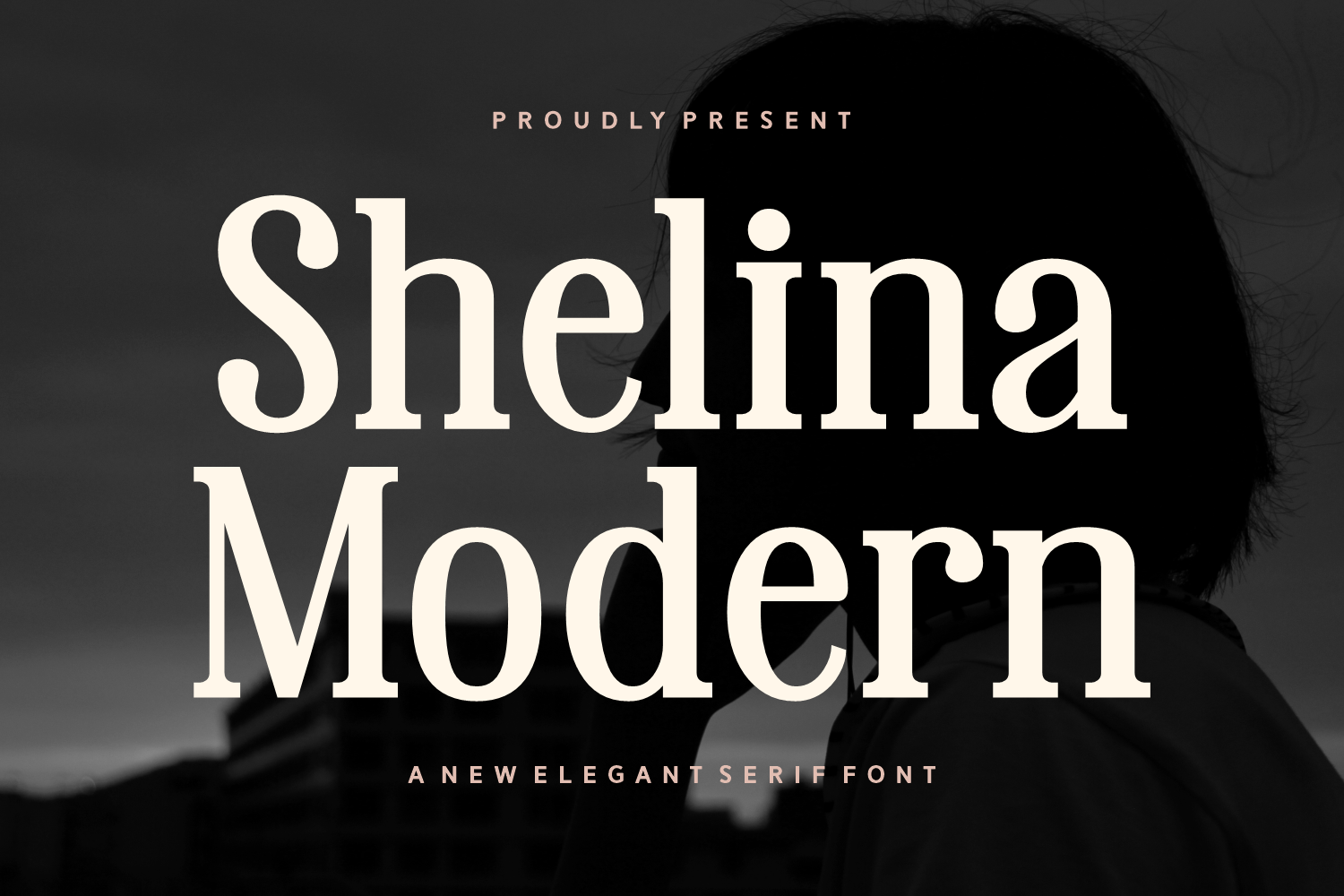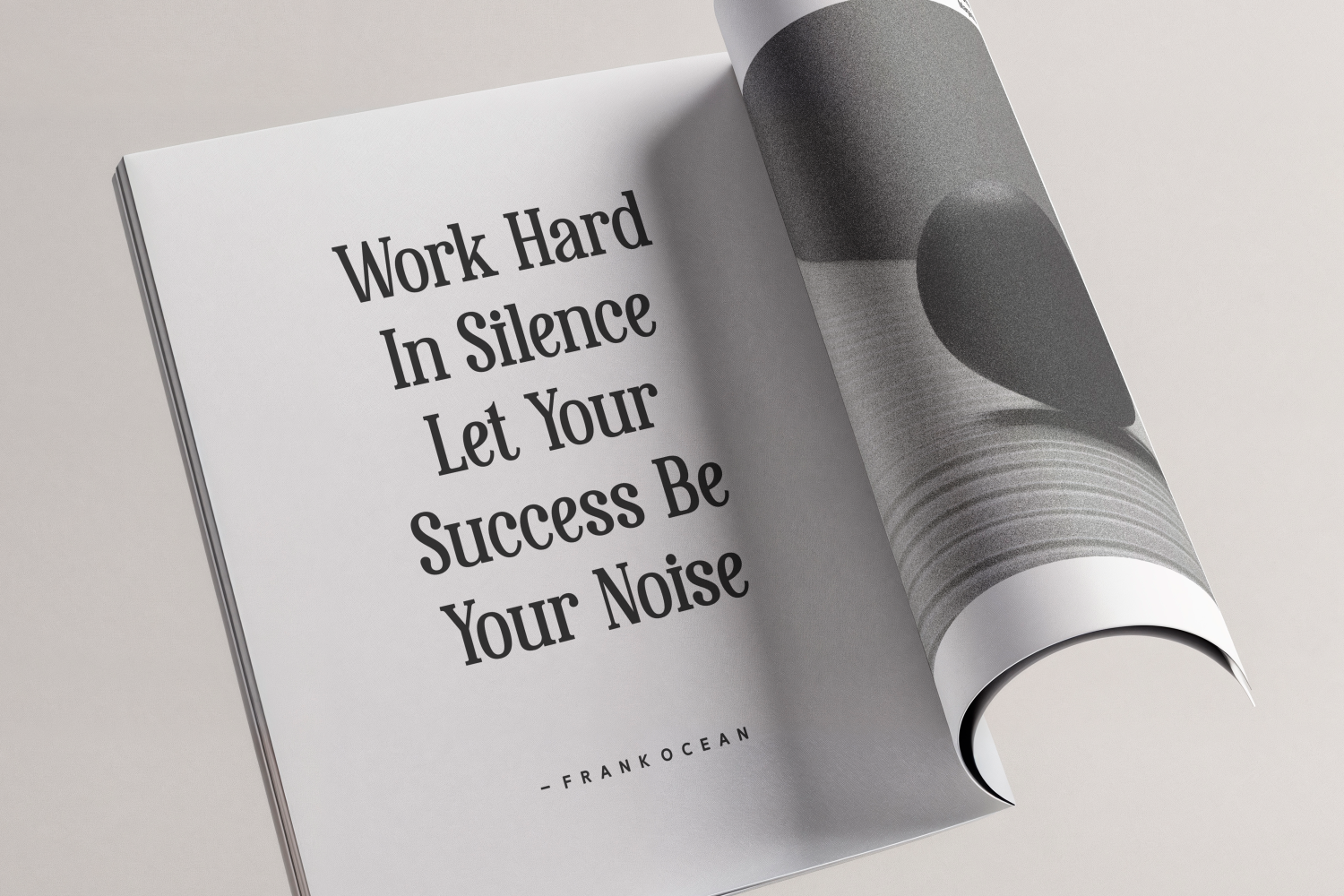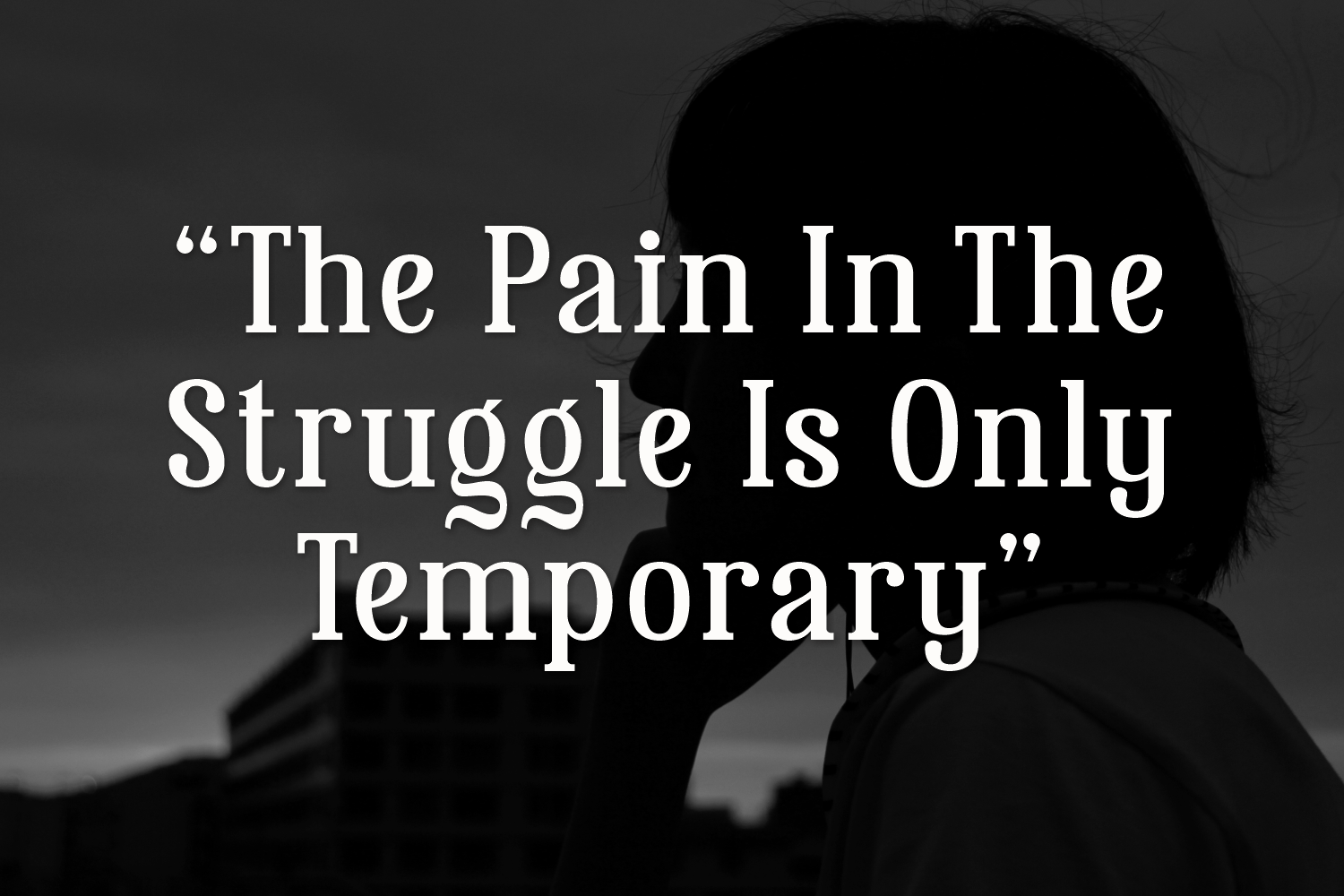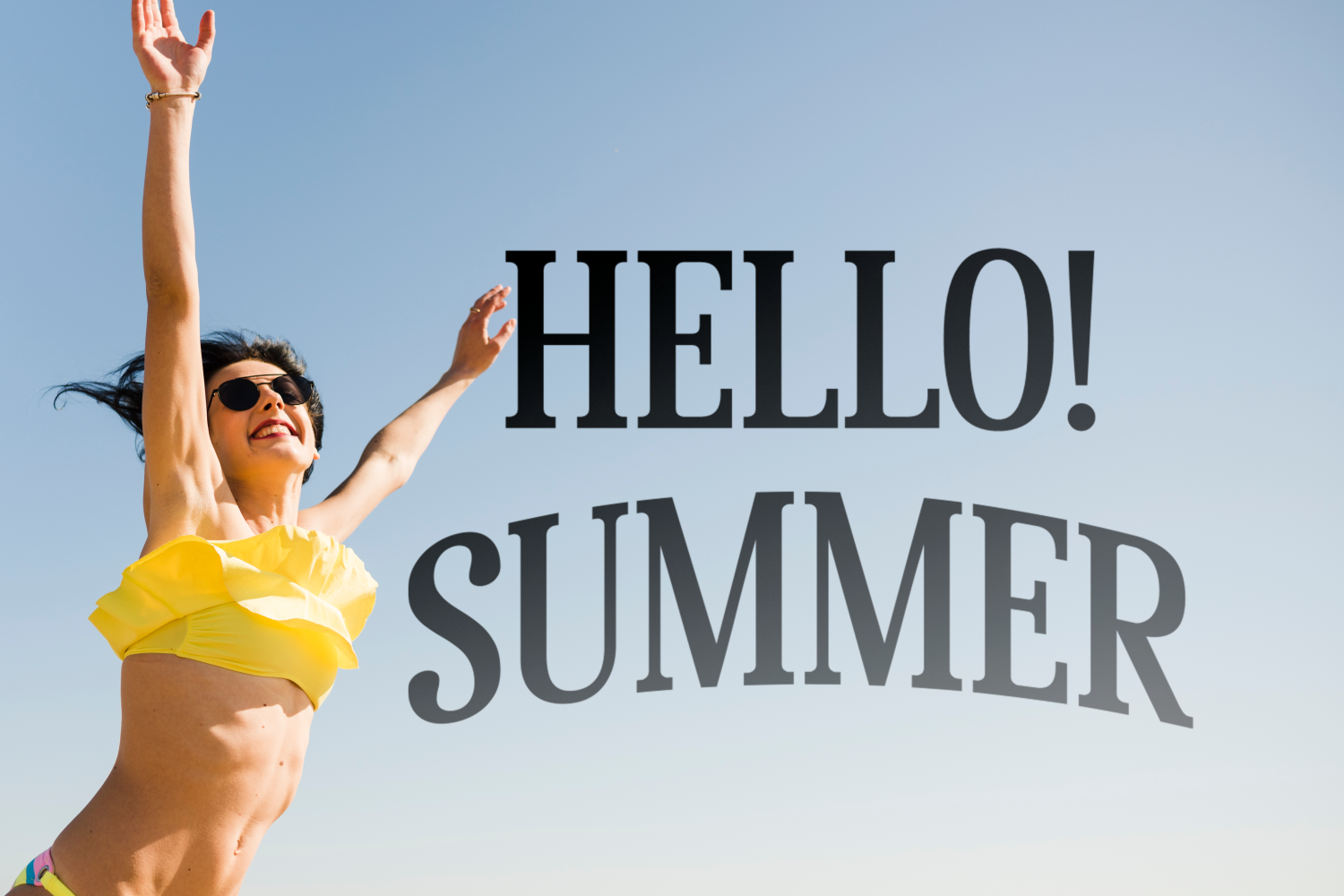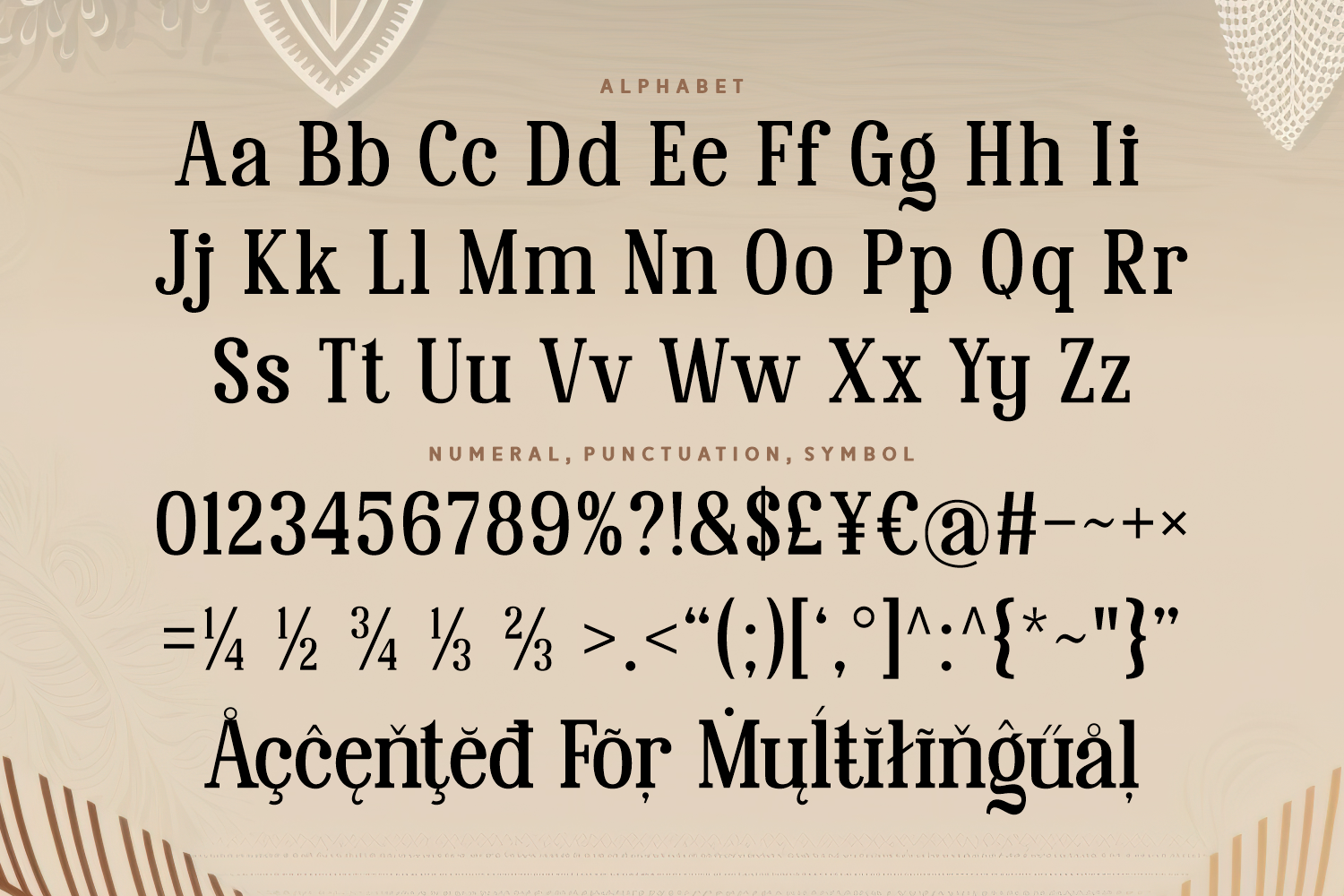
Shelina Modern is a clean yet expressive serif font that combines classic roots with a contemporary twist. With its smooth curves, consistent weight, and strong readability, it’s ideal for elegant branding, magazine layouts, professional portfolios, and social content. Shelina Modern makes a powerful first impression while remaining graceful and accessible.